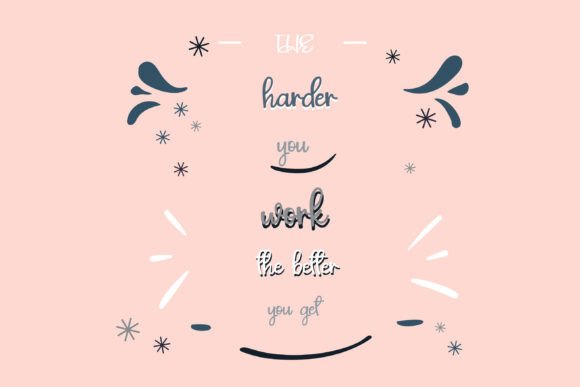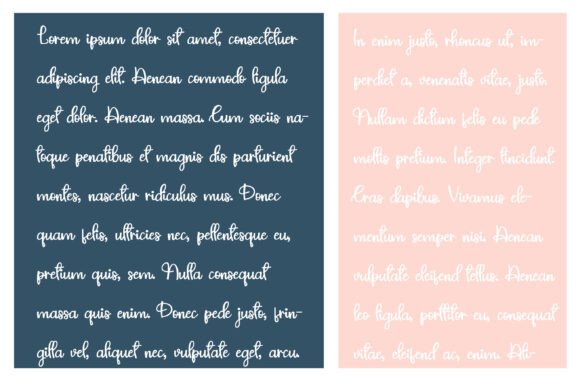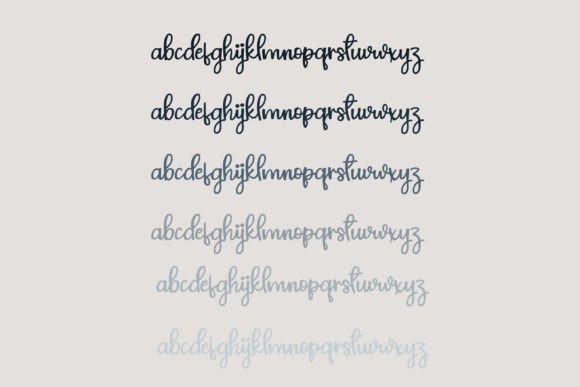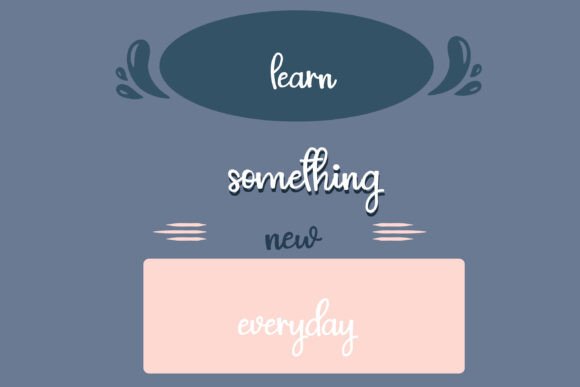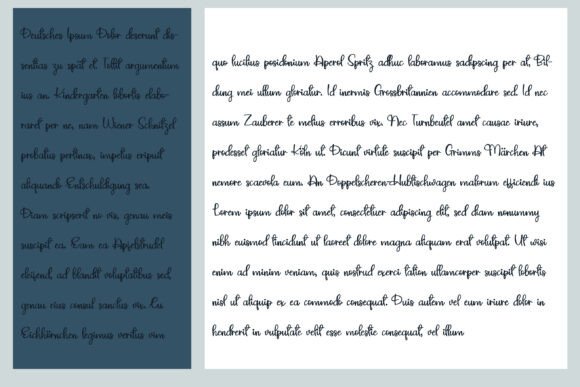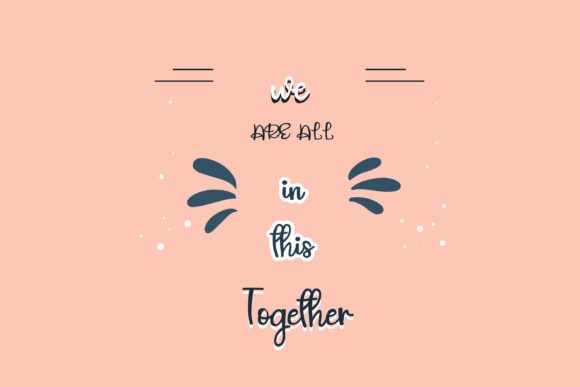
Discover the Charm of Betwixt Font: A Hand-Written Script for Creative Projects
Are you a designer or crafter looking for a unique and elegant font to add a personal touch to your creative projects? Look no further than the Betwixt Font, a beautiful hand-written script that exudes a hand-crafted quality. In this article, we’ll explore the features and benefits of this stunning font, and how it can elevate your designs and crafts to the next level.
A hand-crafted font is a typeface that is designed to mimic the look and feel of handwriting. It’s a font that is created to look like it was written by hand, with all the imperfections and quirks that make handwriting so unique and charming. Hand-crafted fonts are often used for creative projects such as invitations, greeting cards, and other items where a personal touch is desired.
Introducing Betwixt Font
Betwixt Font is a gorgeous hand-written script that is sure to capture your heart. This beautiful cursive font has a hand-crafted quality that makes it perfect for a variety of creative projects. With both bold and light versions included, you can choose the perfect weight to suit your design needs.
Features of Betwixt Font
- Hand-written script: Betwixt Font is a hand-written script that has a unique and personal touch.
- Hand-crafted quality: This font is designed to look like it was written by hand, with all the imperfections and quirks that make handwriting so charming.
- Bold and light versions: Betwixt Font comes in both bold and light versions, allowing you to choose the perfect weight for your design.
- Versatile: This font can be used for a variety of creative projects, from invitations and greeting cards to craft projects and more.
Uses for Betwixt Font
Betwixt Font is a versatile font that can be used for a wide range of creative projects. Here are just a few ideas to get you started:
- Invitations: Use Betwixt Font to create beautiful and elegant invitations for weddings, parties, and other special occasions.
- Greeting cards: This font is perfect for creating heartfelt and personalized greeting cards for birthdays, holidays, and other special occasions.
- Craft projects: Betwixt Font can be used for a variety of craft projects, such as scrapbooking, journaling, and more.
- Signage: This font can be used for signage, such as welcome signs, directional signs, and more.
Tips for Using Betwixt Font
Here are a few tips for using Betwixt Font in your creative projects:
- Pair with other fonts: Betwixt Font pairs well with other fonts, such as serif and sans-serif fonts. Experiment with different font combinations to find the perfect look for your project.
- Use for headings and titles: This font is perfect for headings and titles, where you want to make a statement and add a personal touch.
- Experiment with colors: Betwixt Font looks great in a variety of colors, from bold and bright to soft and pastel. Experiment with different colors to find the perfect look for your project.
Betwixt Font is a beautiful hand-written script that is perfect for designers and crafters looking to add a personal touch to their creative projects. With its hand-crafted quality, bold and light versions, and versatility, this font is sure to become a favorite in your design arsenal. Whether you’re creating invitations, greeting cards, or craft projects, Betwixt Font is the perfect choice.